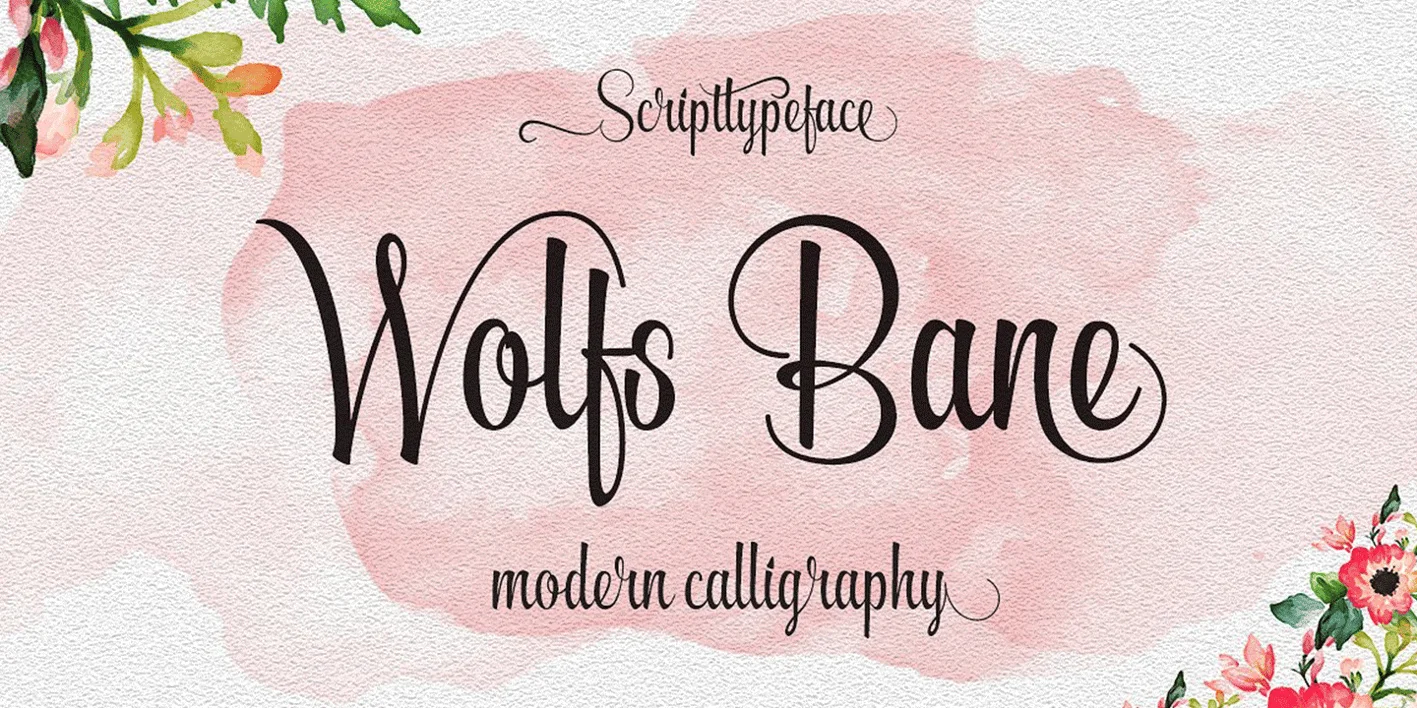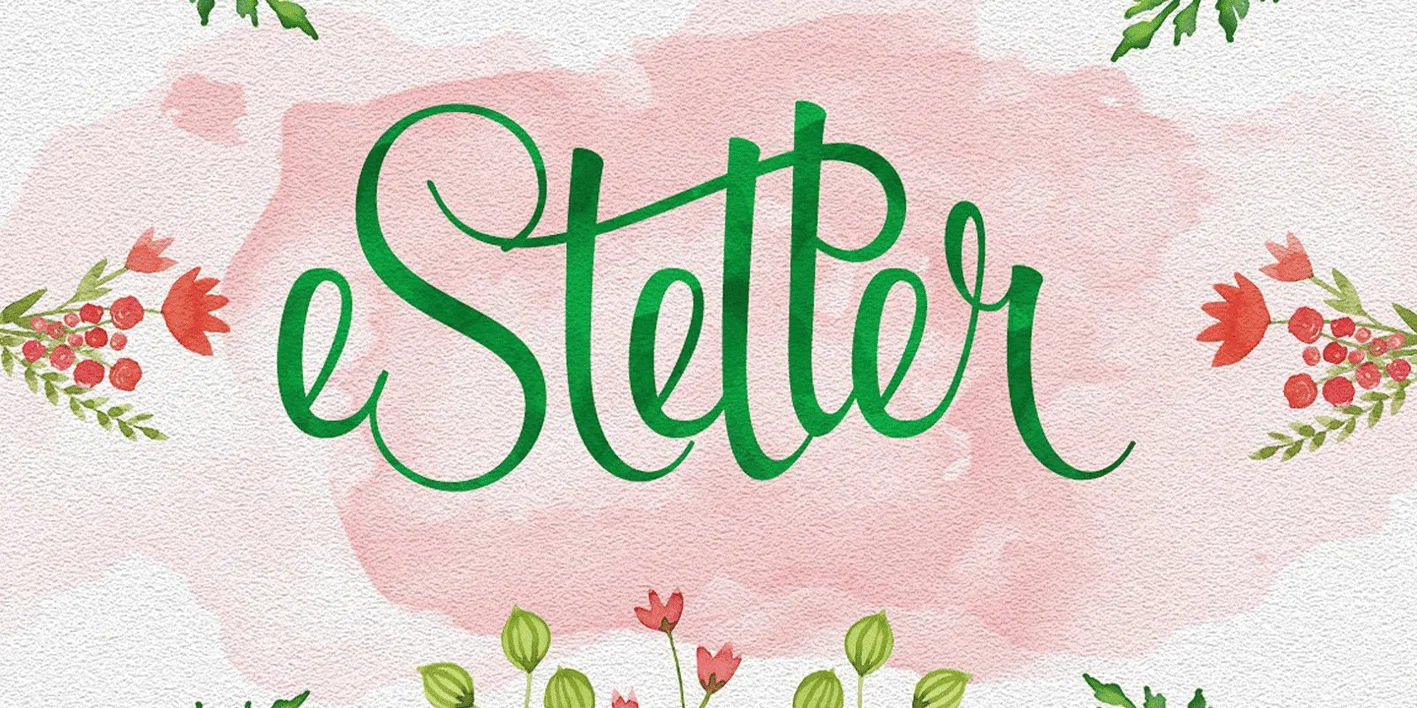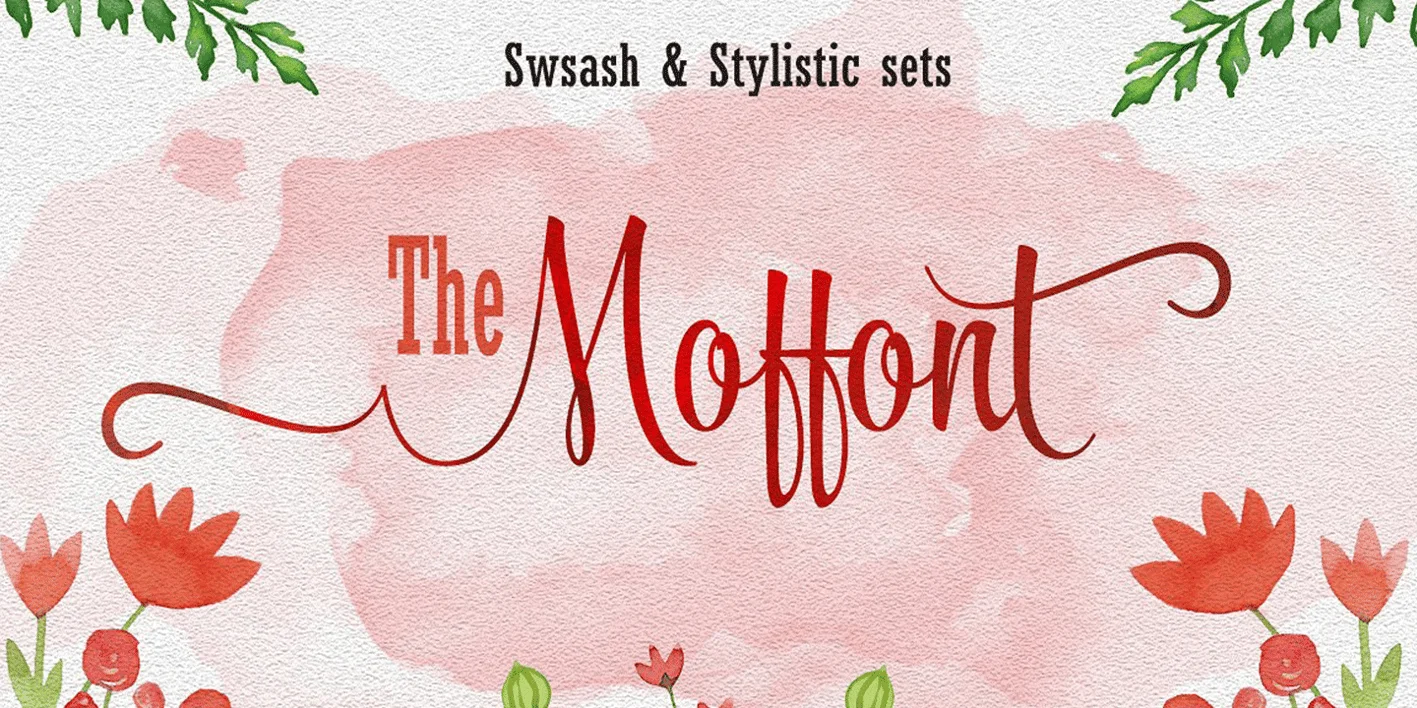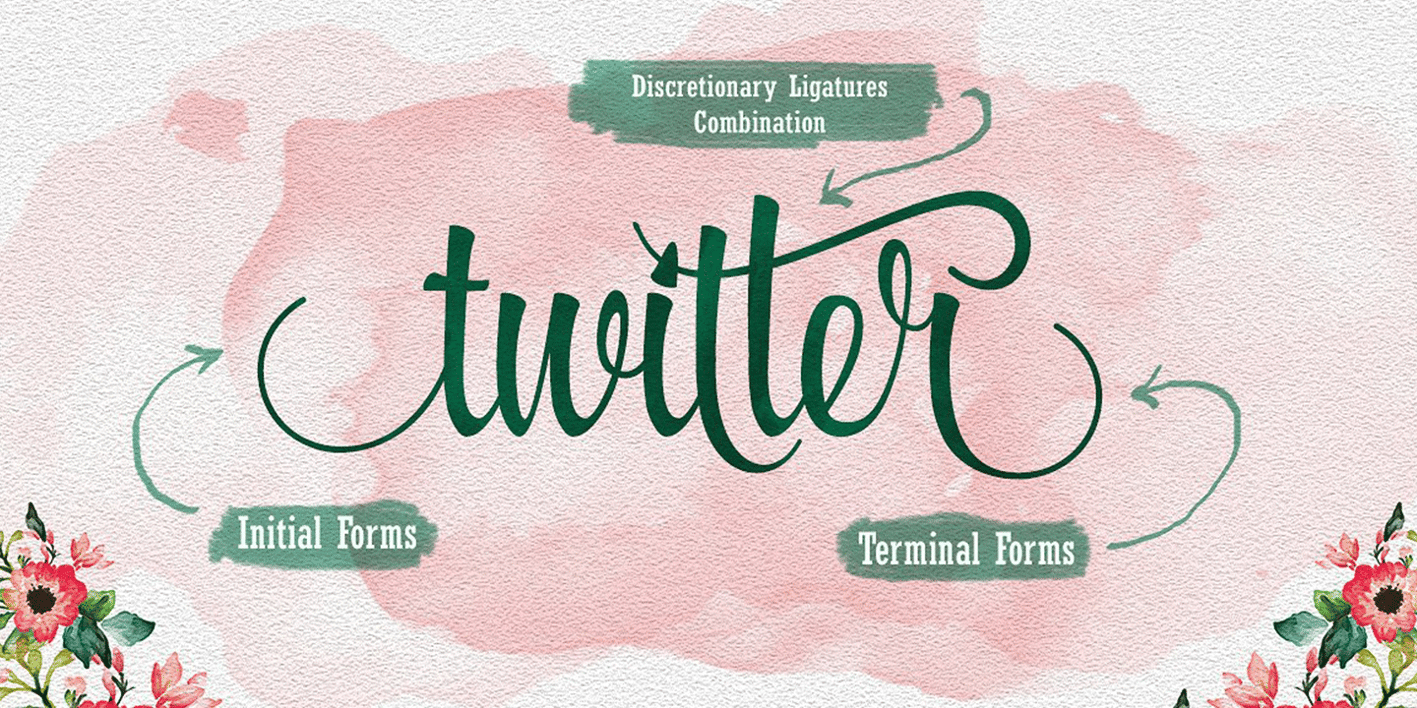
Wolfsbane Font
Typography shapes perception at a subconscious level. Wolfsbane leverages versatility across print and screen contexts to make every composition feel considered. The typeface brings an elegant, calligraphic sensibility to a broad range of creative disciplines, with refined proportions and careful stroke modulation that holds up whether the work is print-first or screen-first.
In practice, Wolfsbane proves particularly effective for packaging design, social media graphics, greeting cards, fragrance labels, annual reports. Designers reaching for it find that the type decisions feel resolved rather than laboured — a useful quality when client timelines are tight.
The range of applications extends to editorial layouts, web design, feminine branding, high-end cosmetic packaging. That breadth is deliberate: the proportions and spacing were stress-tested across a wide range of mock briefs before the typeface was finalised.
Pairing Wolfsbane with a contrasting serif or a neutral grotesque gives mixed-format layouts a clear visual grammar without requiring constant size adjustments to establish hierarchy.
Motion designers building title sequences and lower thirds find Wolfsbane a reliable choice for projects that demand both personality and restraint. The design avoids the self-conscious quirkiness that dates quickly, settling instead for considered distinctiveness that holds up over time.